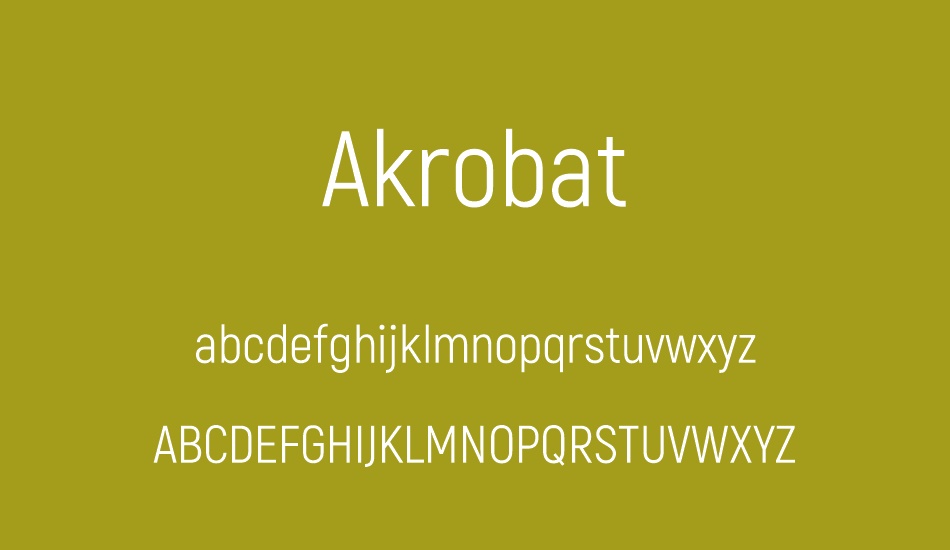
Akrobat Font
Akrobat Font is the most used of the Adobe photoshop. It is famous for the bold and italic feature and it is similar to the Montserrat font. It’s miles similar to neither strictly geometric in stock; its sorts are created in order that each guy and the lady individual is fast and without trouble recognized. It‚Äôs designed to make the entire clients are without hassle utilizing it.
The selection of the right font paperwork is as massive as such as poppins font or a man or woman intelligently to a format. Akrobat Font Free it has a classical, close to noble appearance and is incredible for developing enforcing headlines, at the aspect of a touch of sophistication to logos and introducing sophistication to poster designs. It exists to useful resource you to move obligations off of your normal list and flow on. It seems like shella script may be used as an alphabet tattoo and language supergirls.